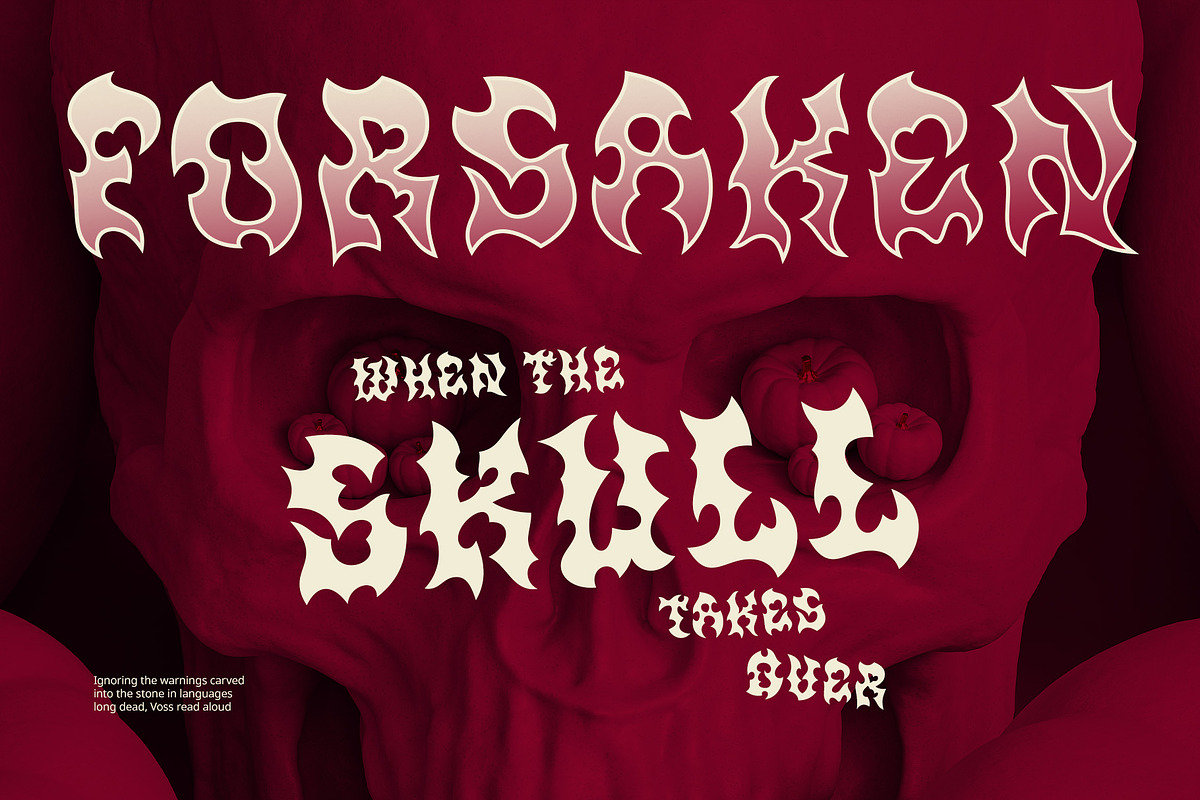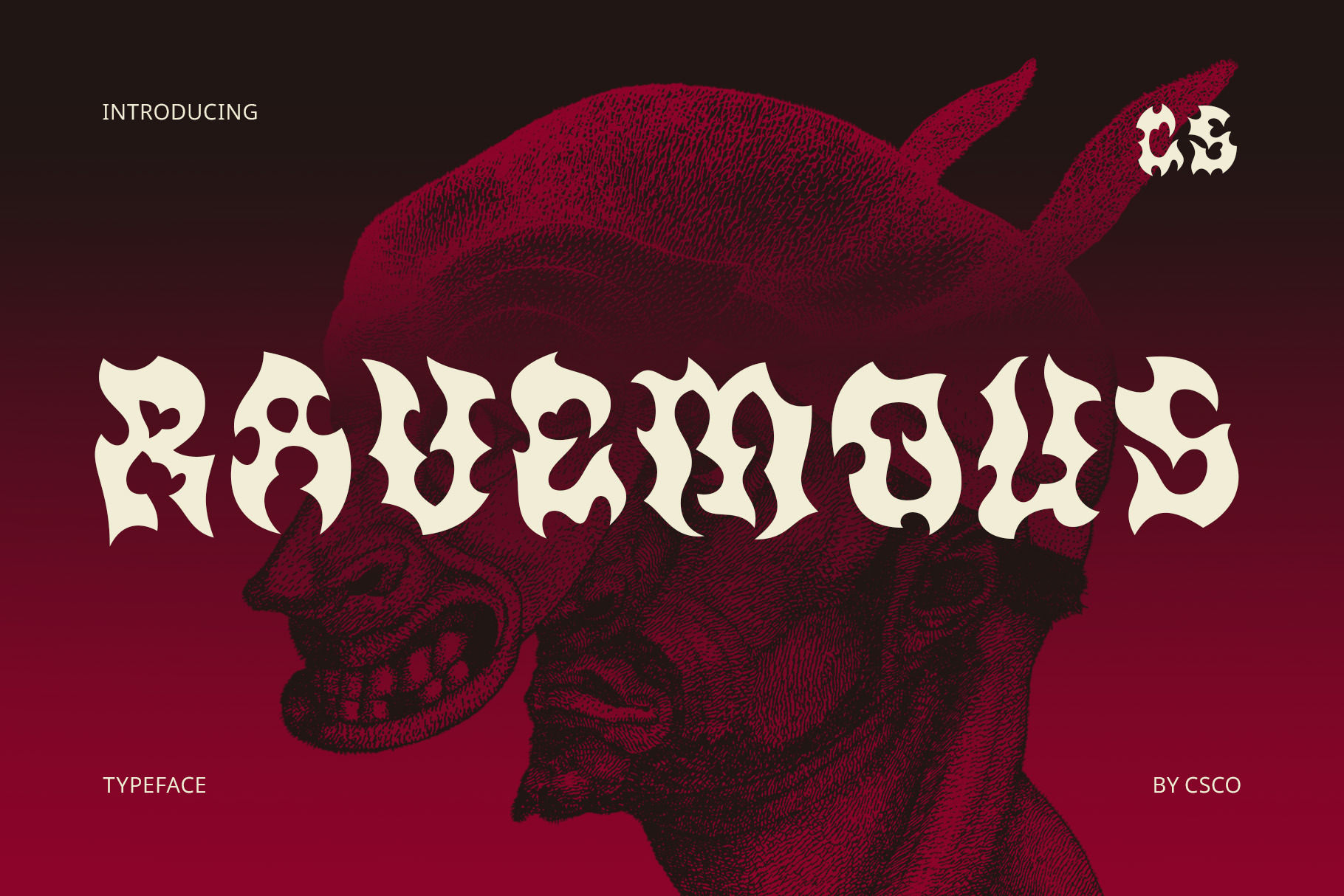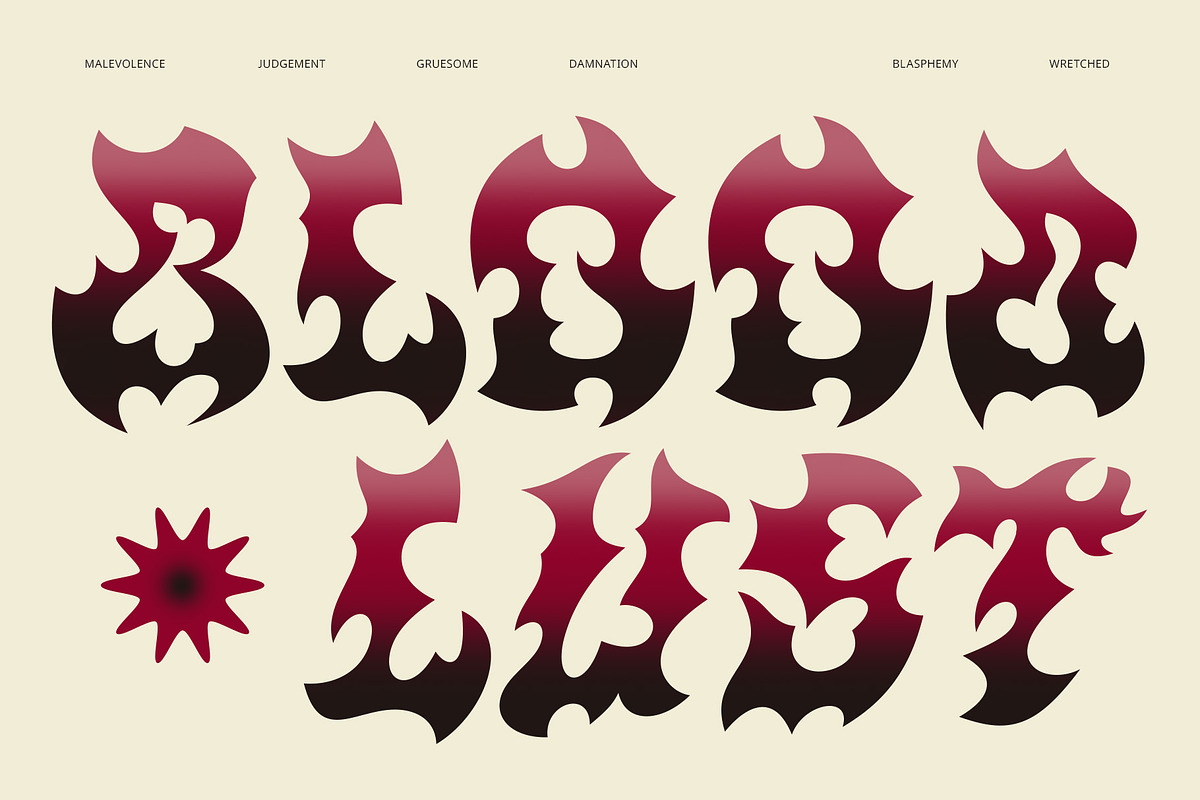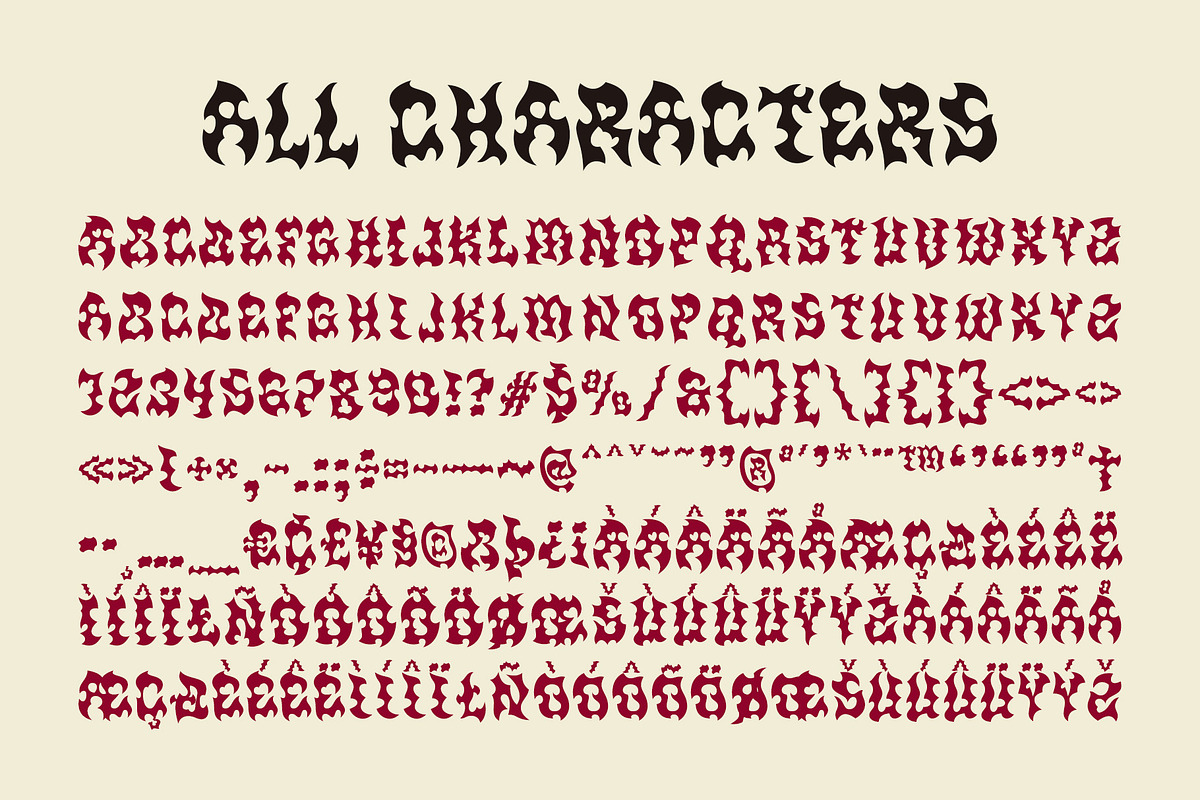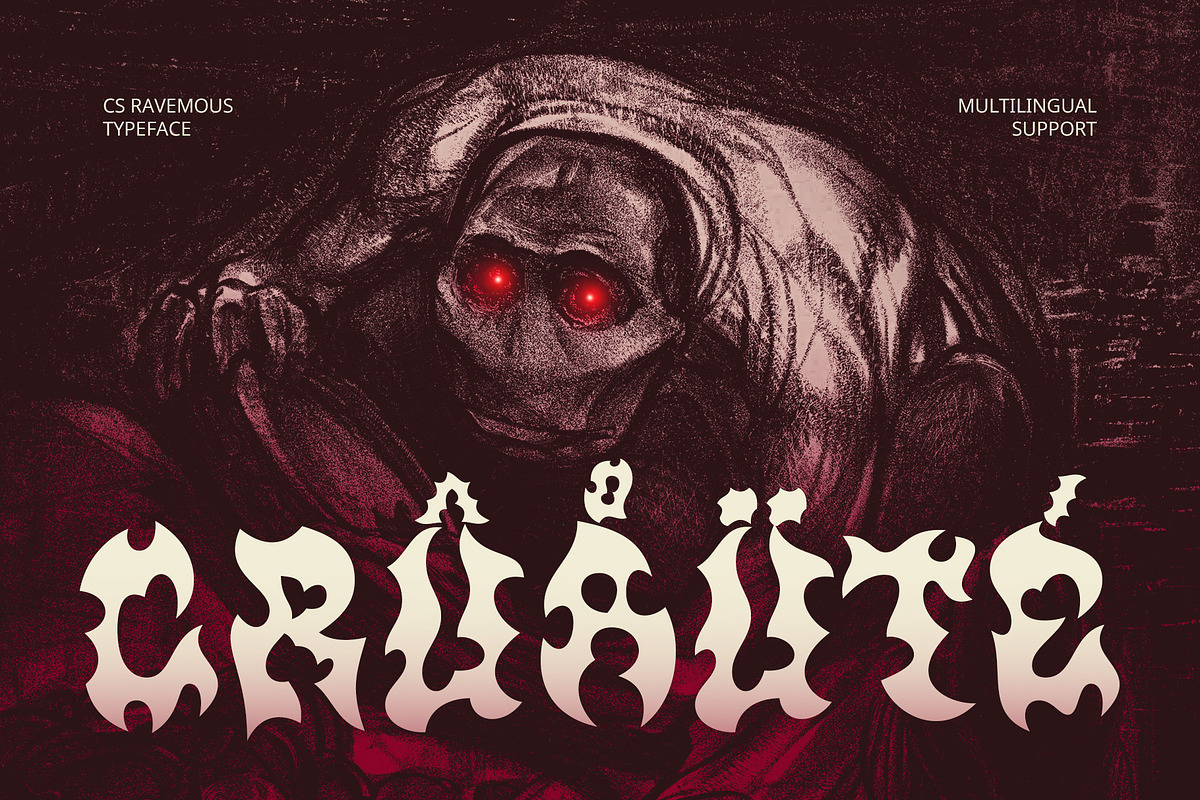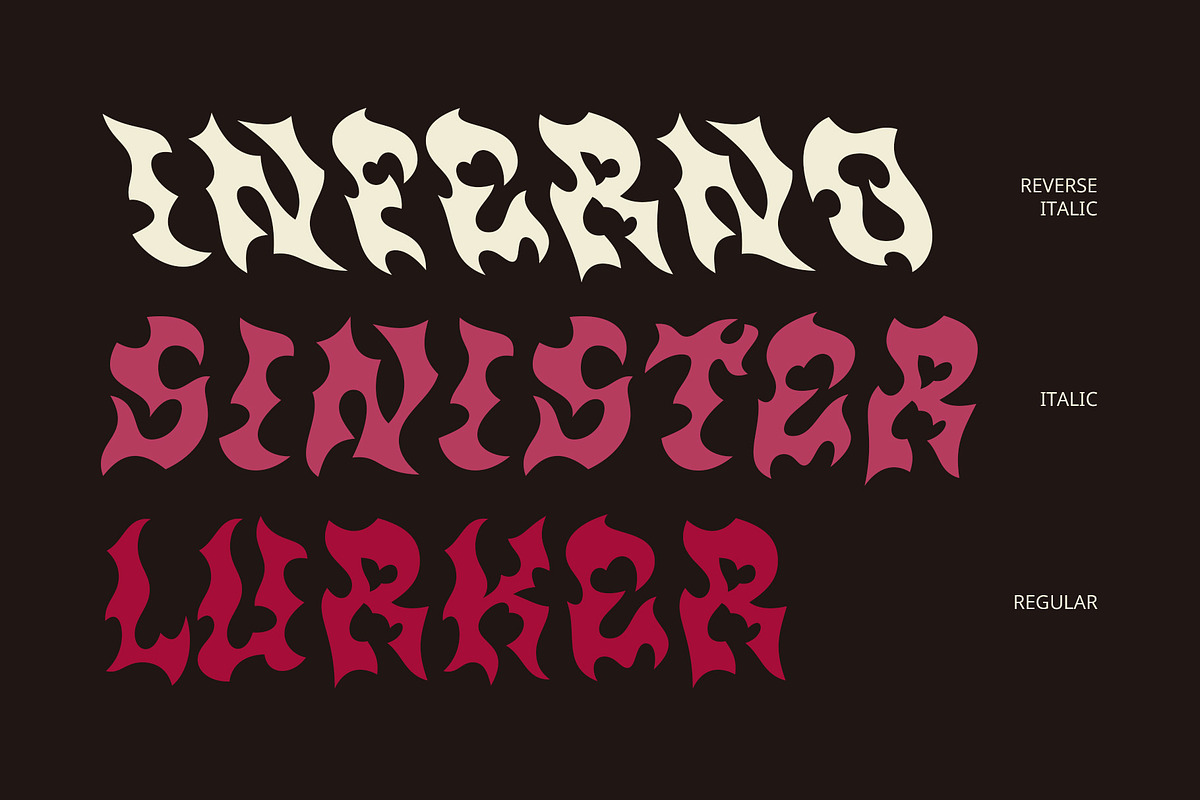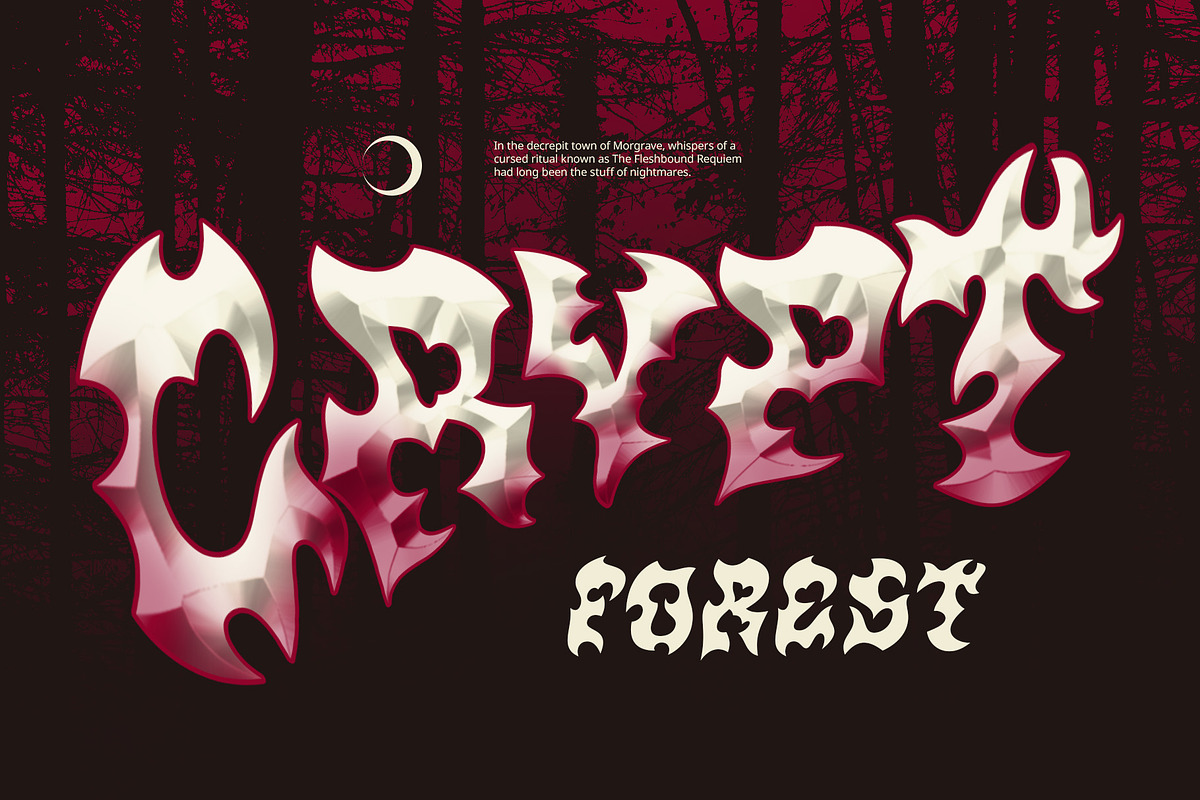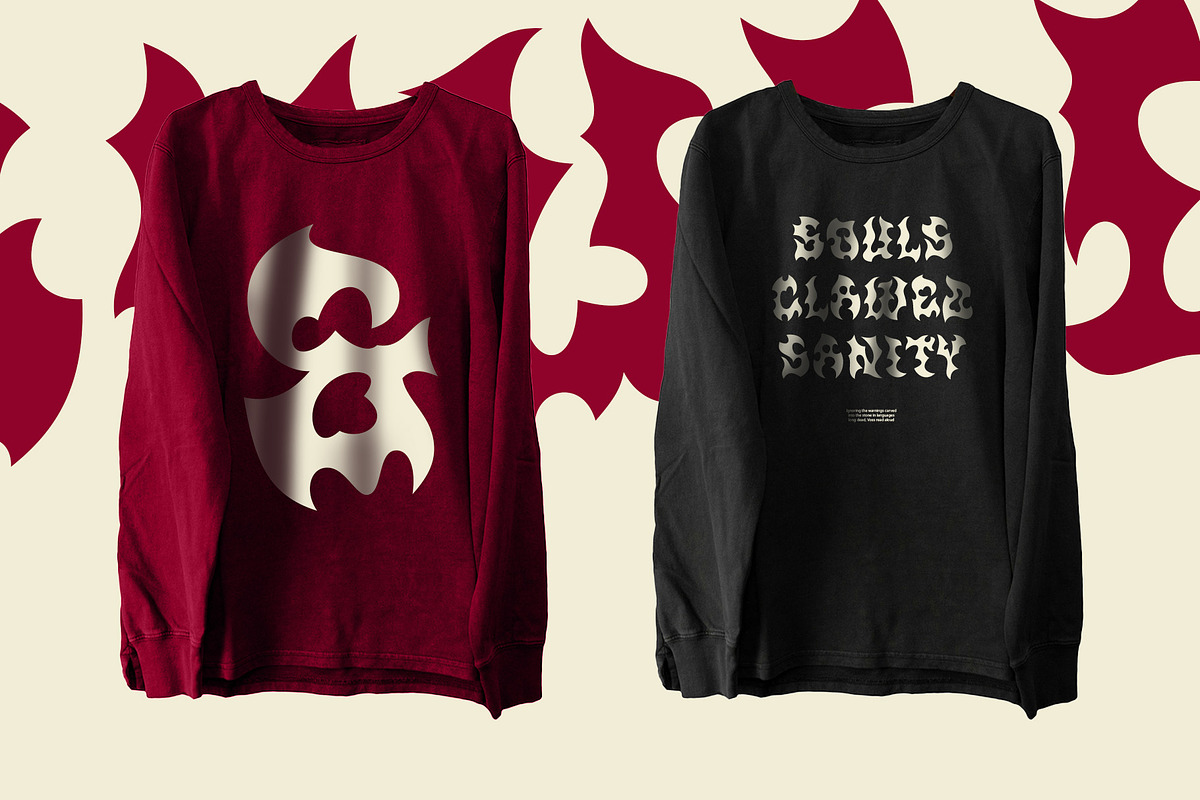
CS Ravemous – Black Metal Font
CS Ravemous – Black Metal Font: Unleash Chaos with Sharp and Mysterious Style
Black Metal Display Font with Sharp, Wild Forms CS Ravemous – Black Metal Font is a display typeface designed to echo the wild, untamed energy of black metal. The jagged structure and aggressive details make it the perfect choice for visuals that demand power and individuality.
Mysterious and Unique Vibe Infused with a dark and enigmatic personality, CS Ravemous stands out with its distinctive character. The font carries a mystical, rebellious tone that resonates deeply in designs aiming for an unorthodox and impactful appearance. Ideal for projects that explore the unknown, the occult, or the extreme, it adds a haunting beauty to every letter.
Perfect for Extreme Band Logos and Dark Themes Its wild forms are tailor-made for dark-themed designs that need to be bold, memorable, and dripping with attitude. It’s an ideal tool for any creator working in the realm of the extreme.
Striking Typography for Experimental Visuals From experimental posters to cutting-edge branding, CS Ravemous turns type into an art form. Its chaotic elegance and jagged rhythm command attention, making every design feel alive with intensity. Use it where tradition breaks, and innovation begins—this font is your gateway to a new realm of expressive darkness.